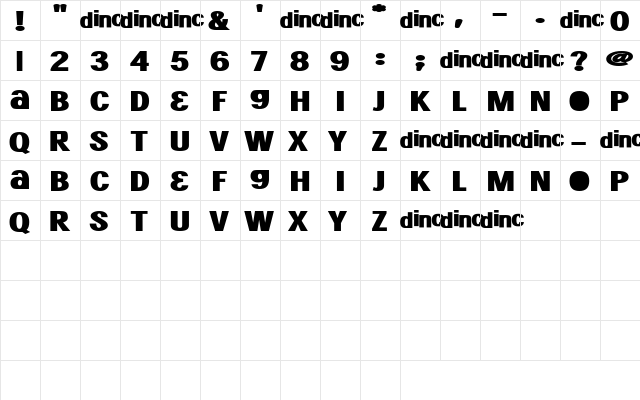
TheComedians Regular
Design Context for TheComedians Typeface
TheComedians is a composed and adaptable typeface that performs quietly and consistently across a wide range of design contexts.